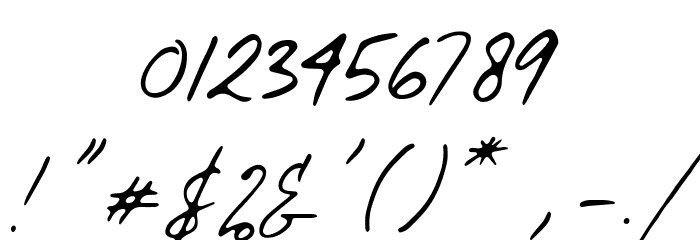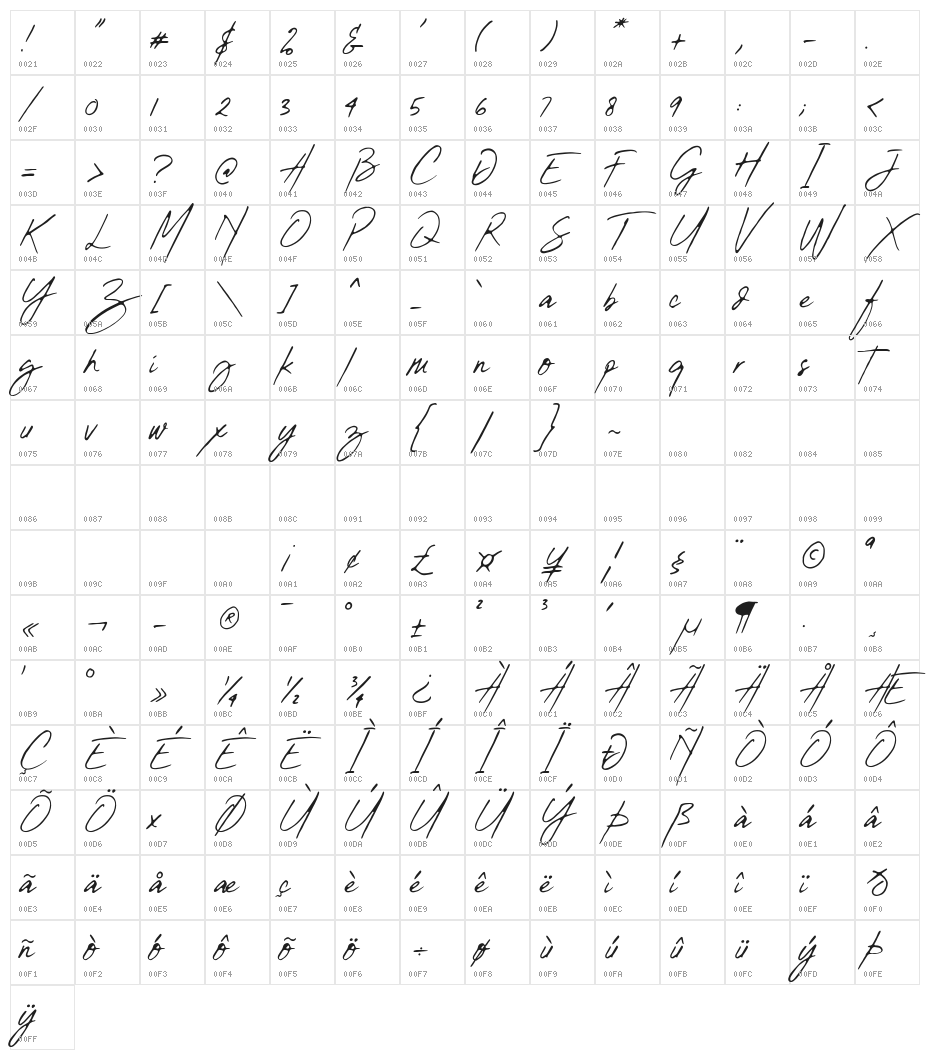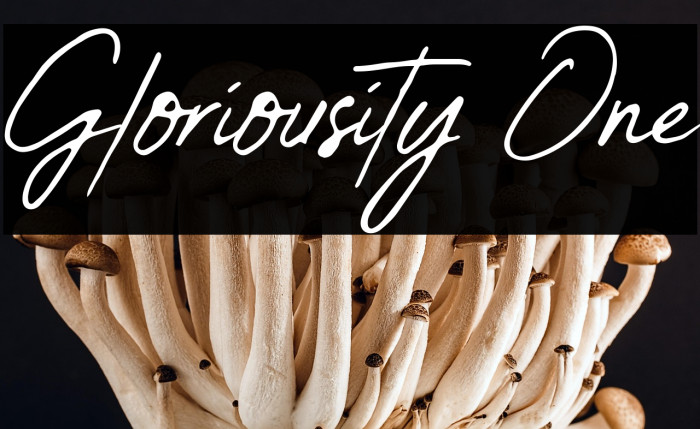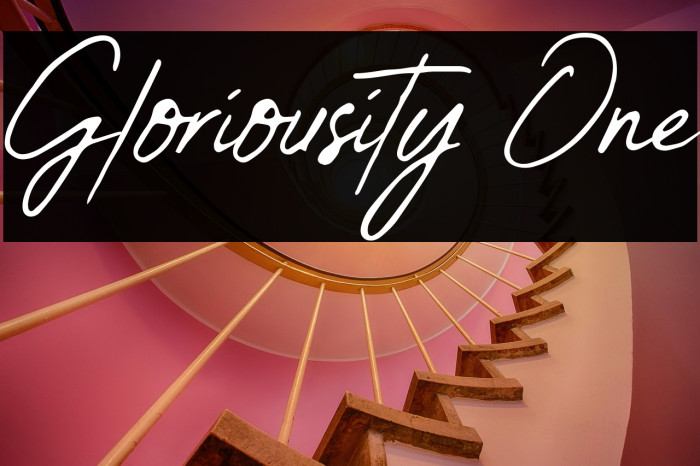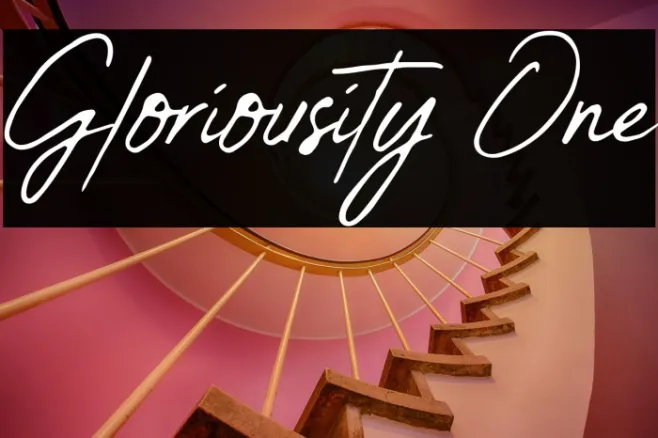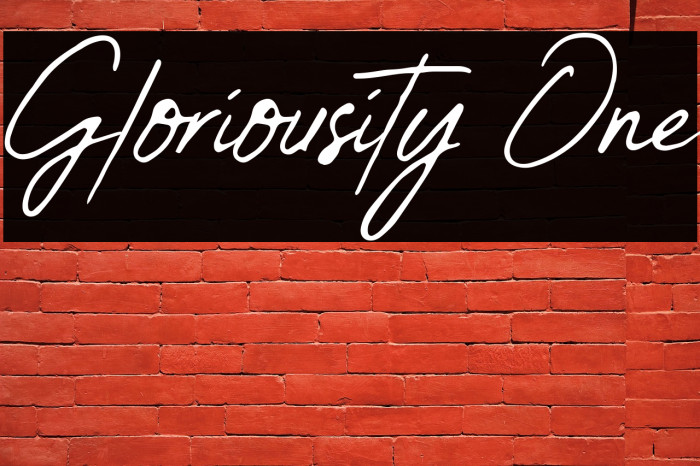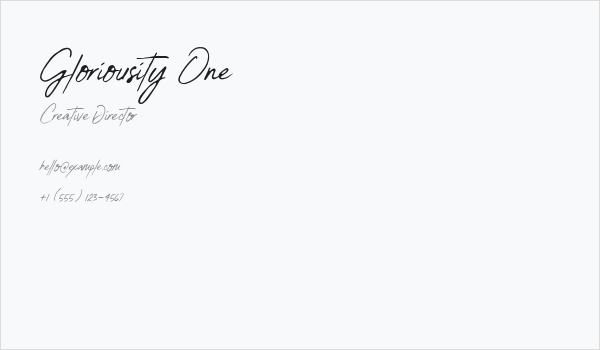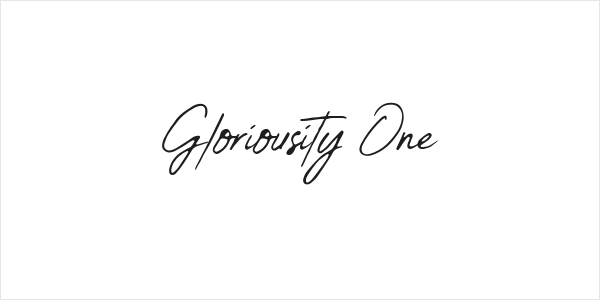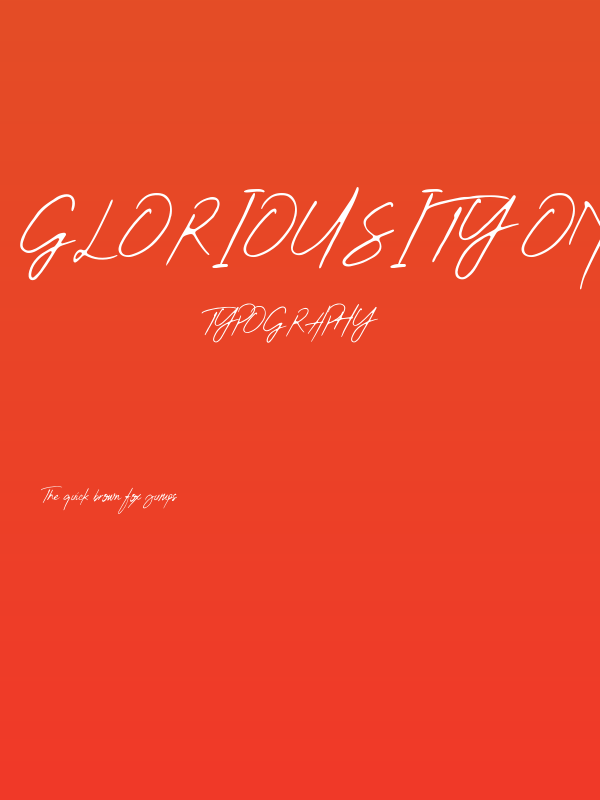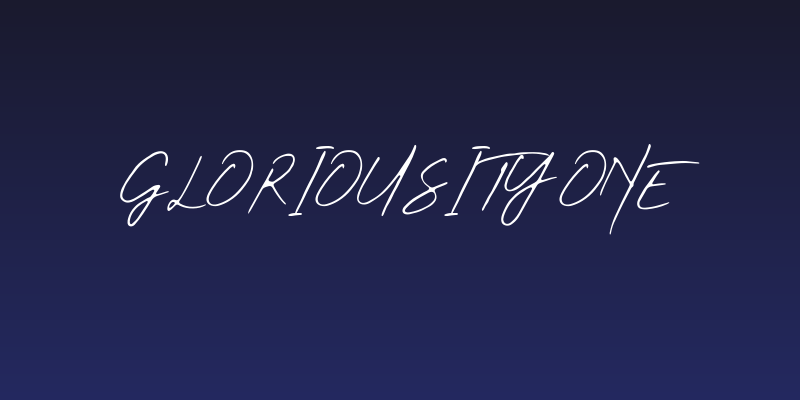
Gloriousity One Font
Gloriousity One Description
This font exhibits a dynamic and fluid handwritten style, characterized by its cursive and slightly slanted letterforms. The uppercase letters are tall and elegant, with a consistent flow that connects many of the characters. The lowercase letters maintain a similar fluidity, with some letters featuring loops and flourishes that add to the overall aesthetic. The numerals are clear and maintain the handwritten style, ensuring readability. Special characters are well-integrated, matching the cursive theme. The font's overall appearance is both artistic and legible, making it suitable for creative projects.
| Proposed Projects | Ideal for wedding invitations, greeting cards, personal branding, and artistic projects. |